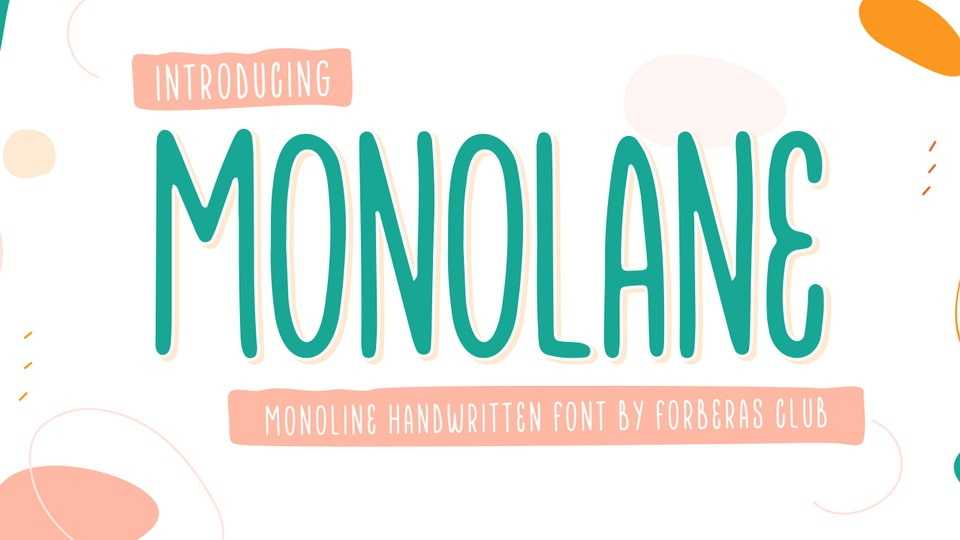
Download Monolane font, a handwritten typeface inspired by modern and ligature characters. It is especially designed for fun, playful, kids projects.